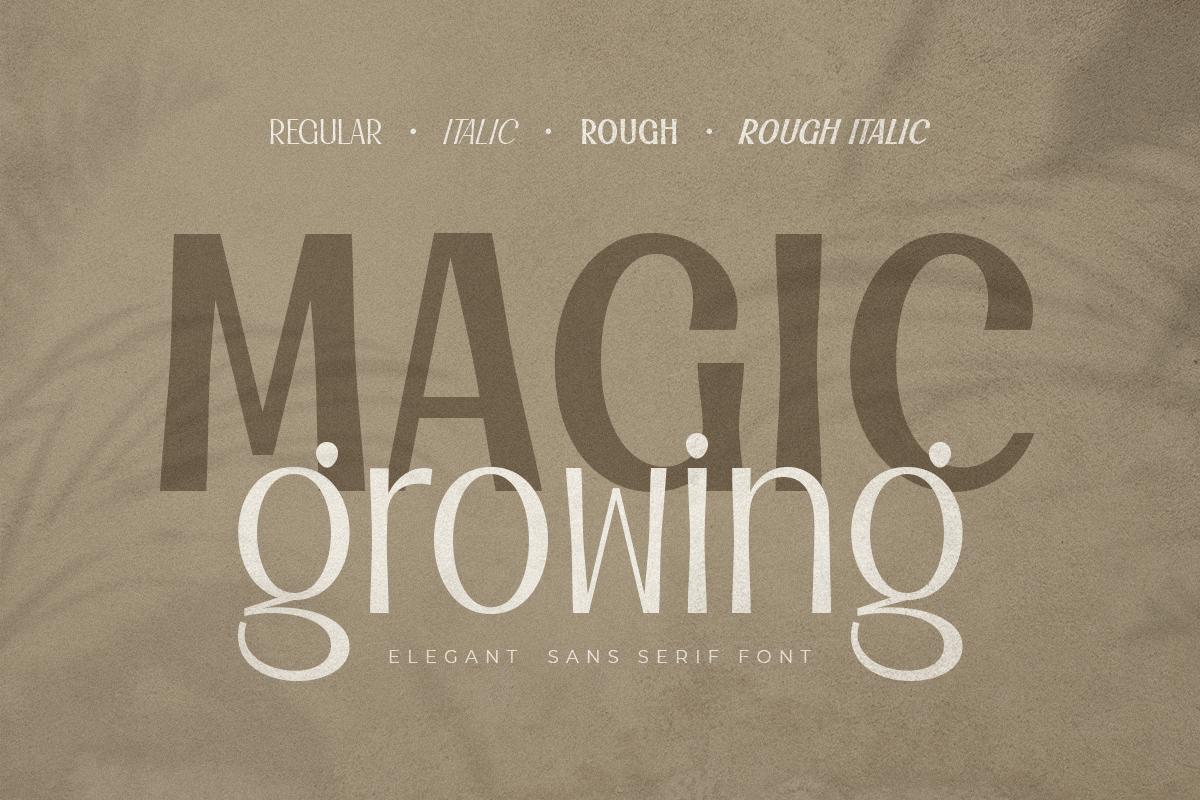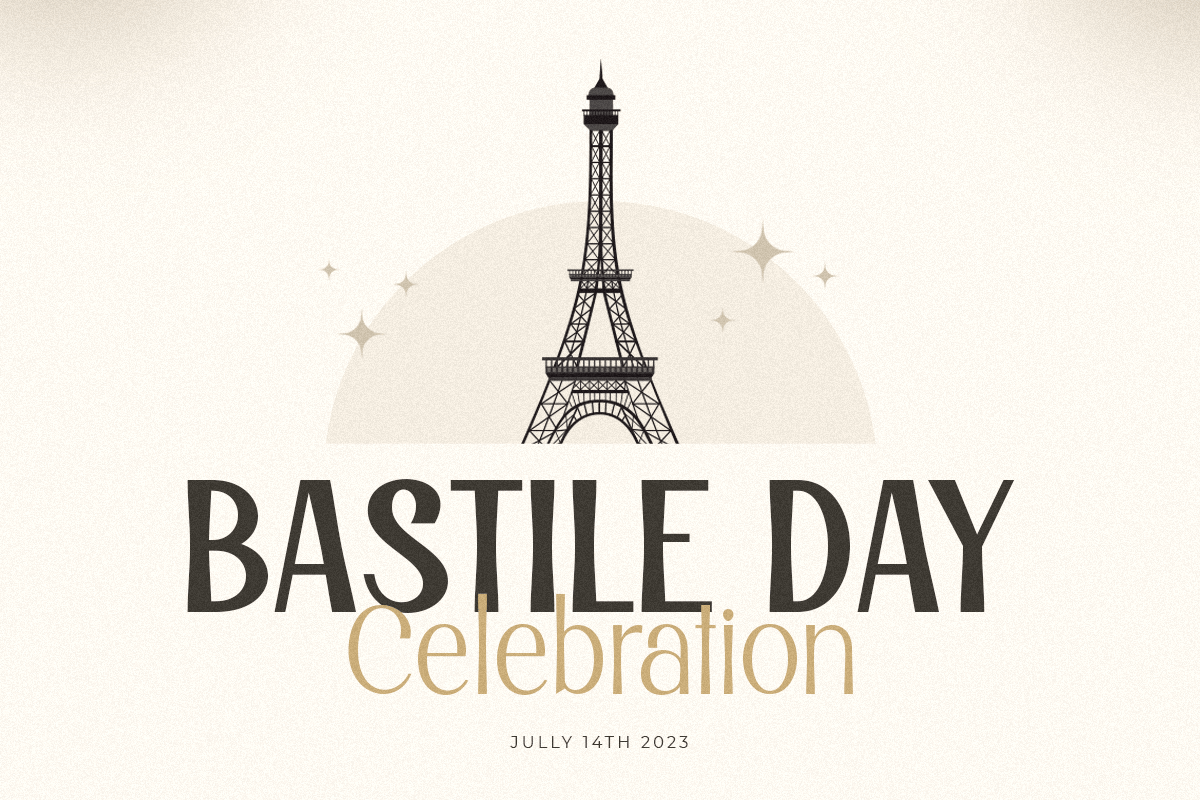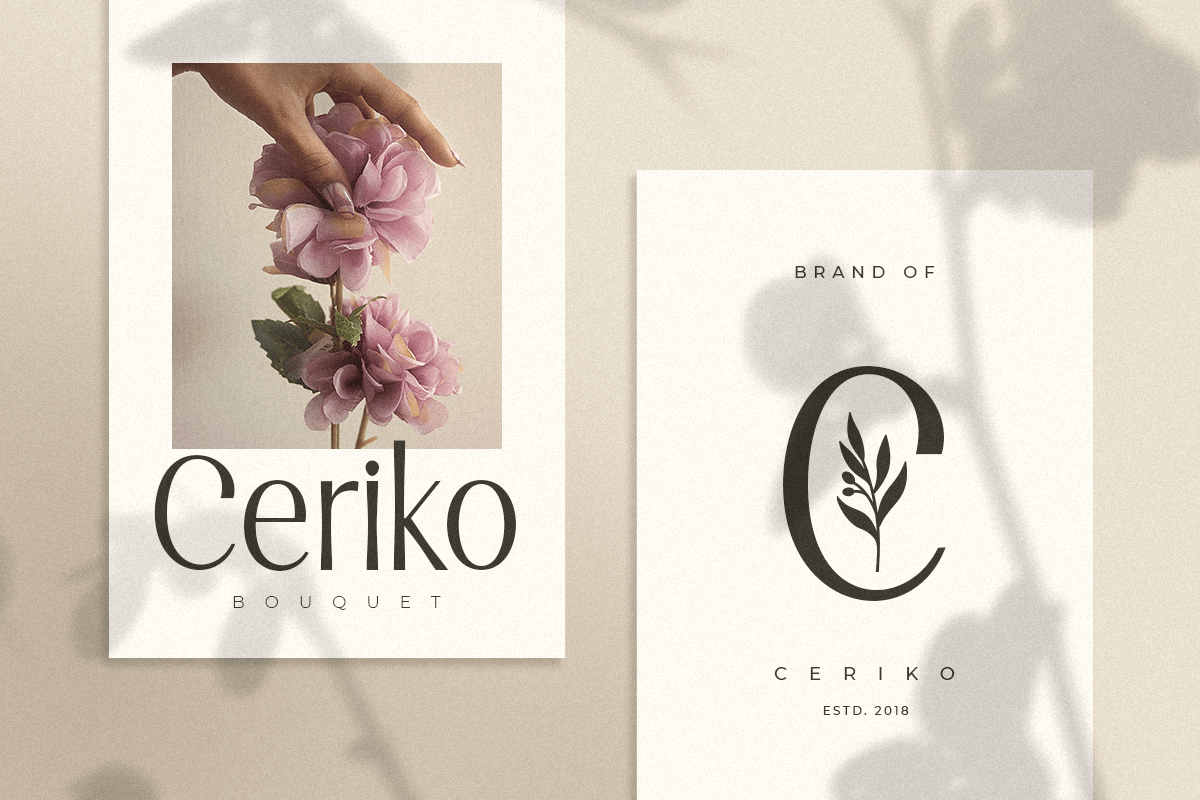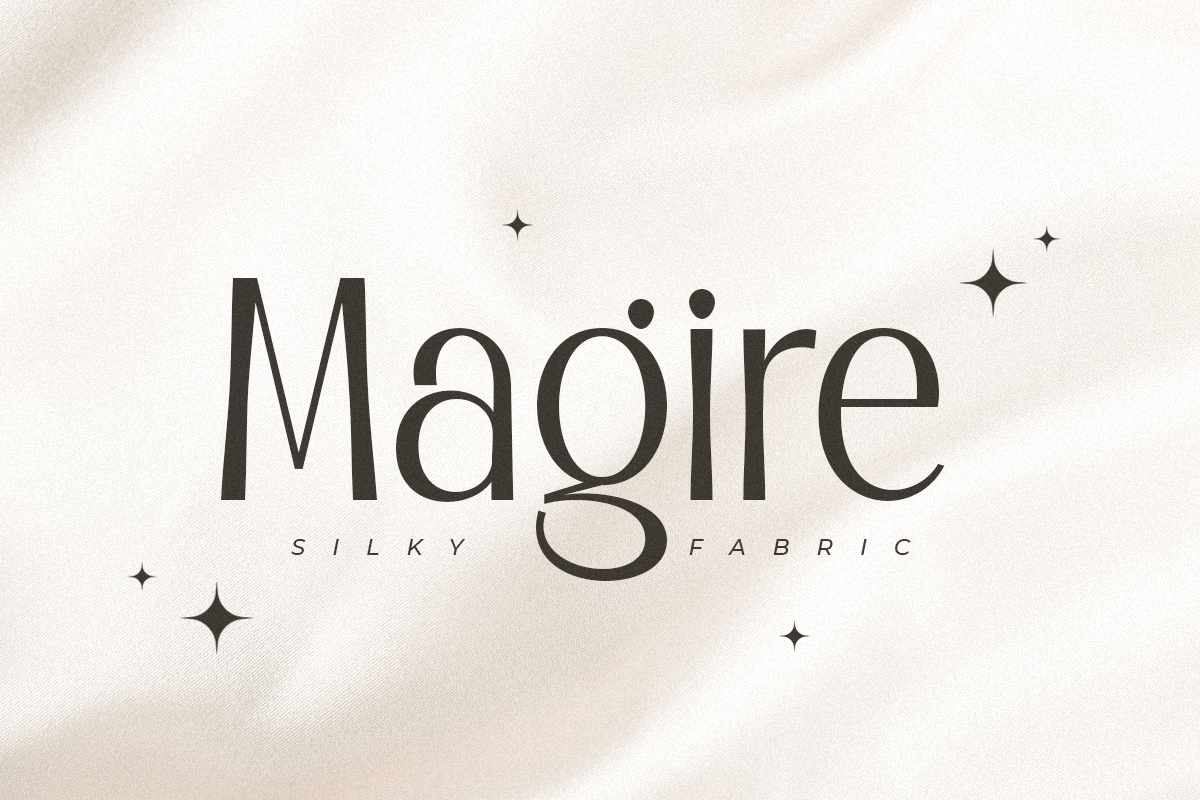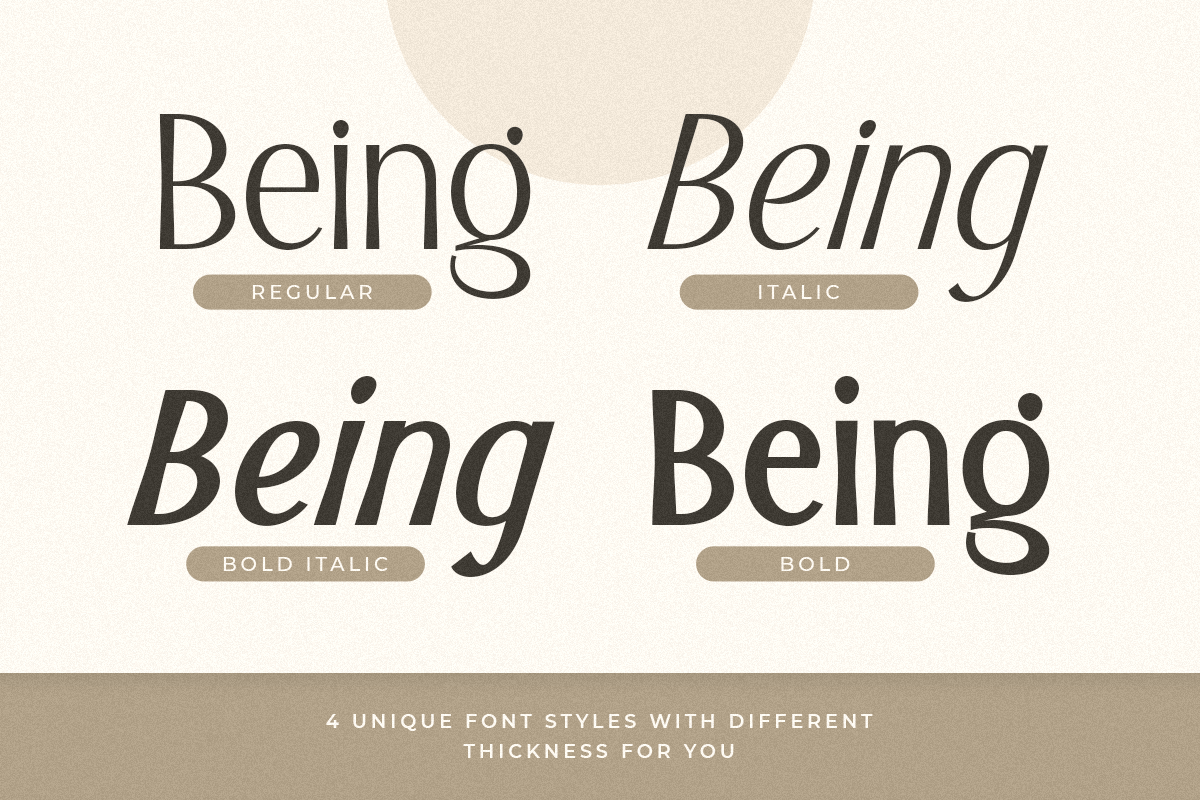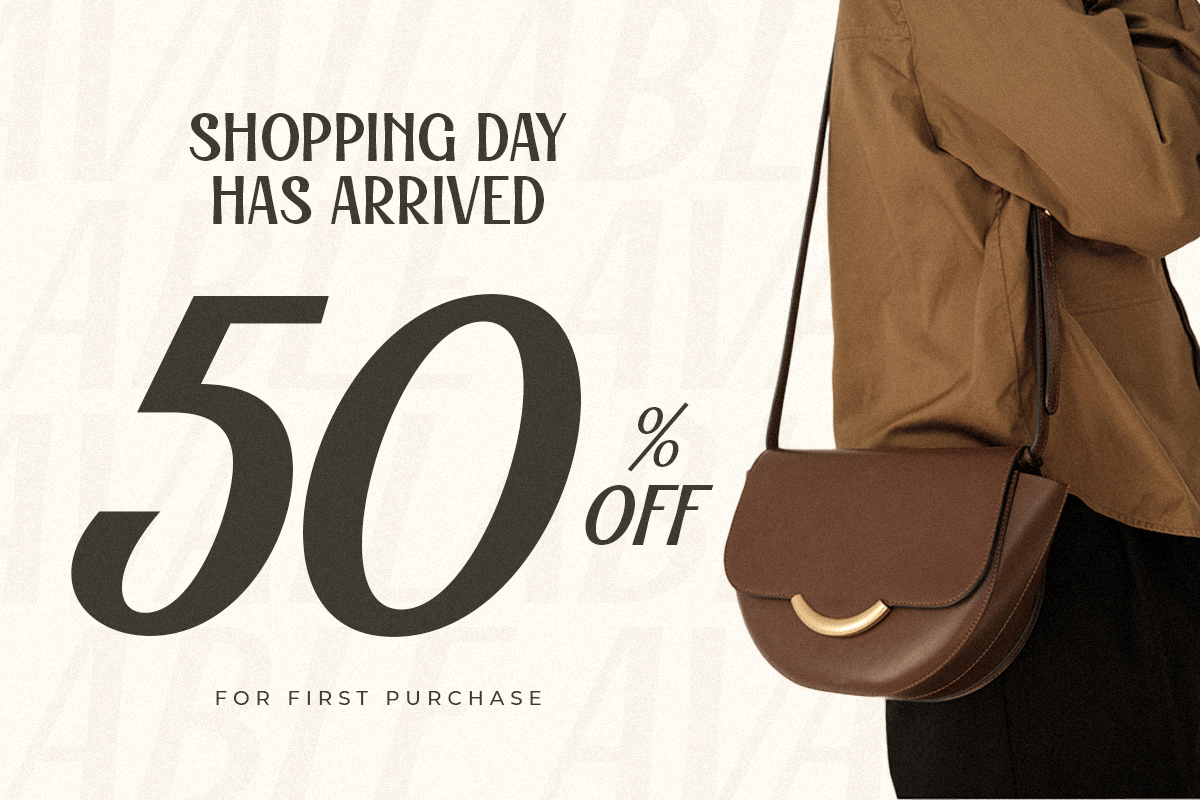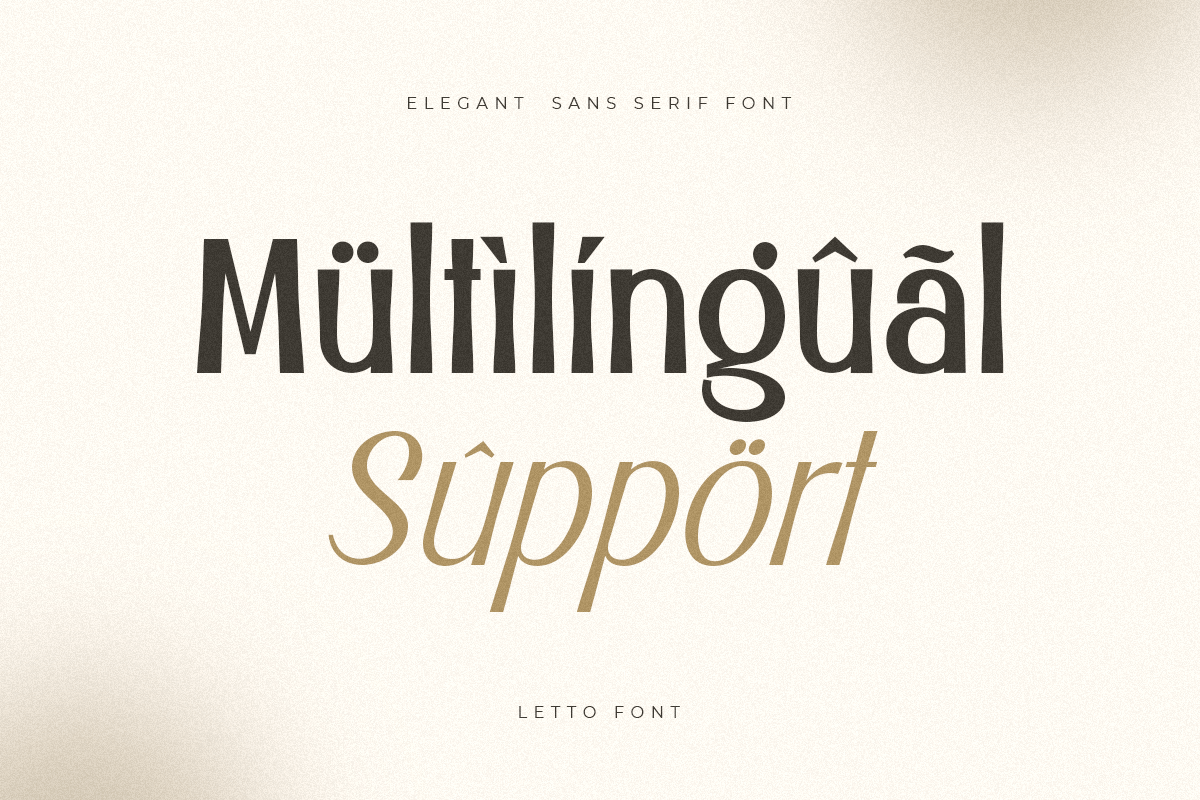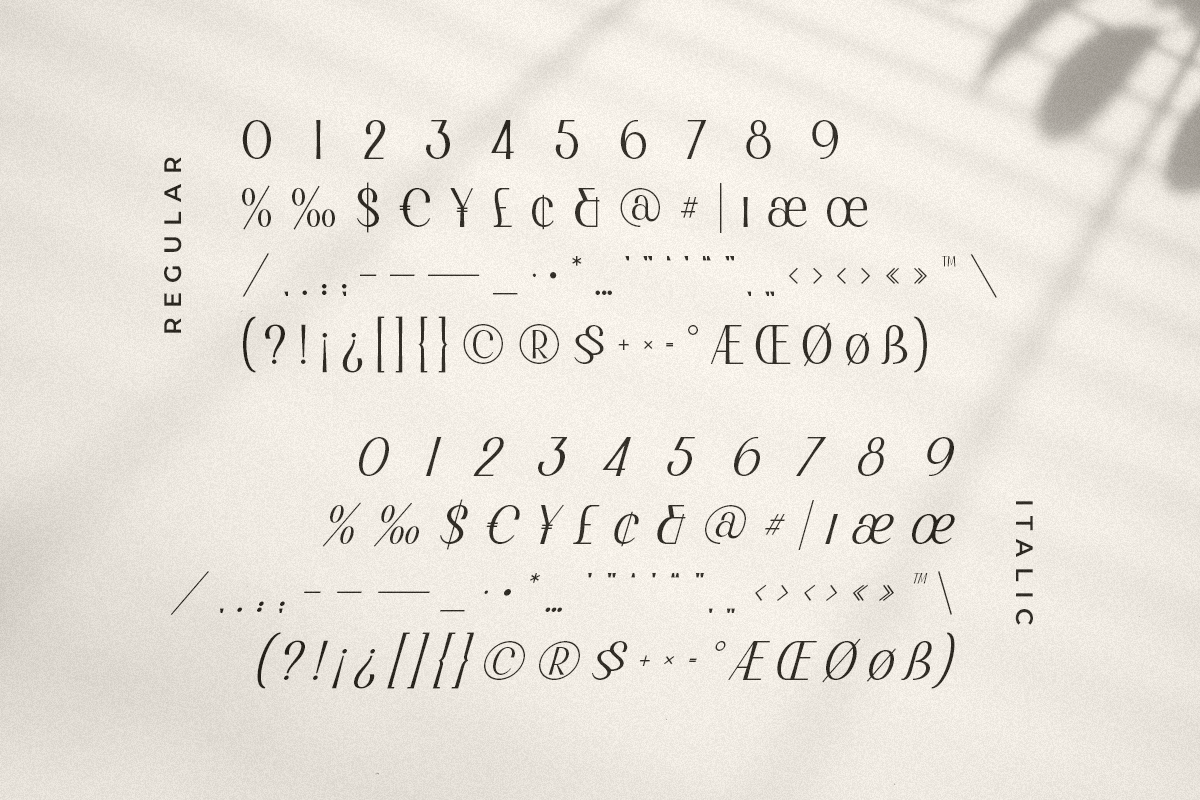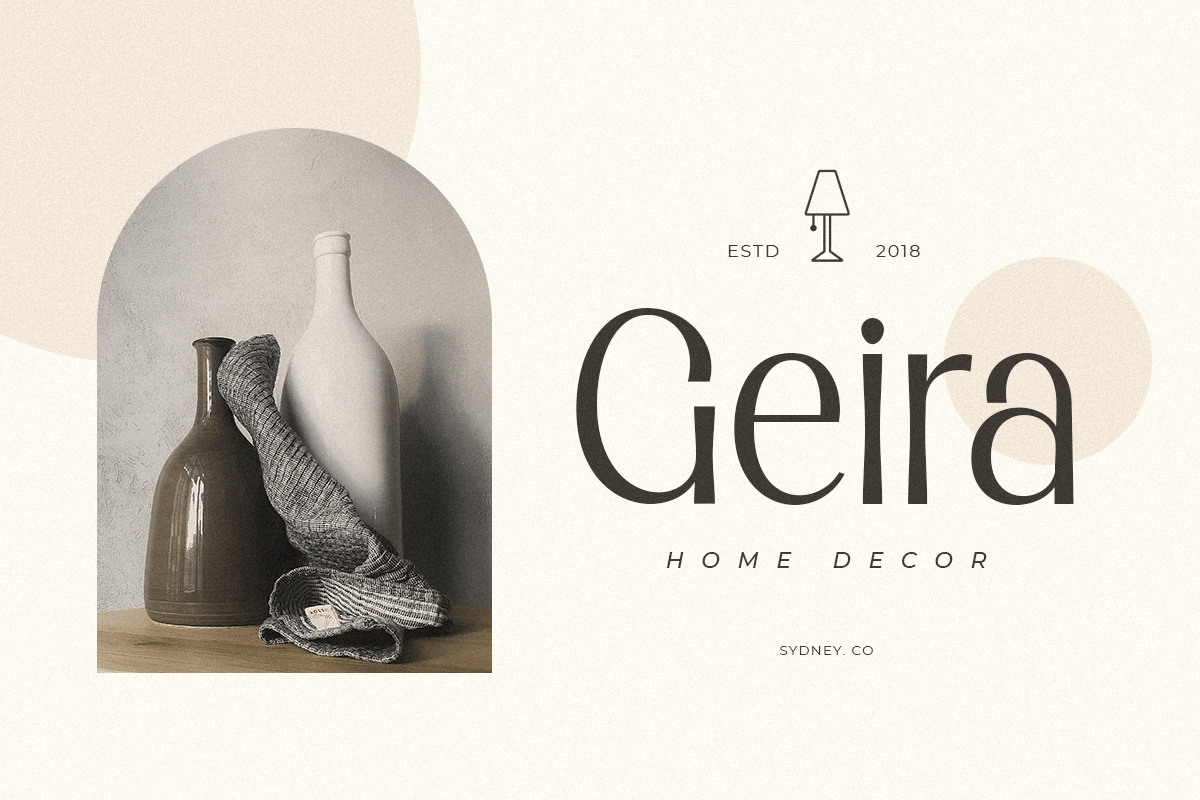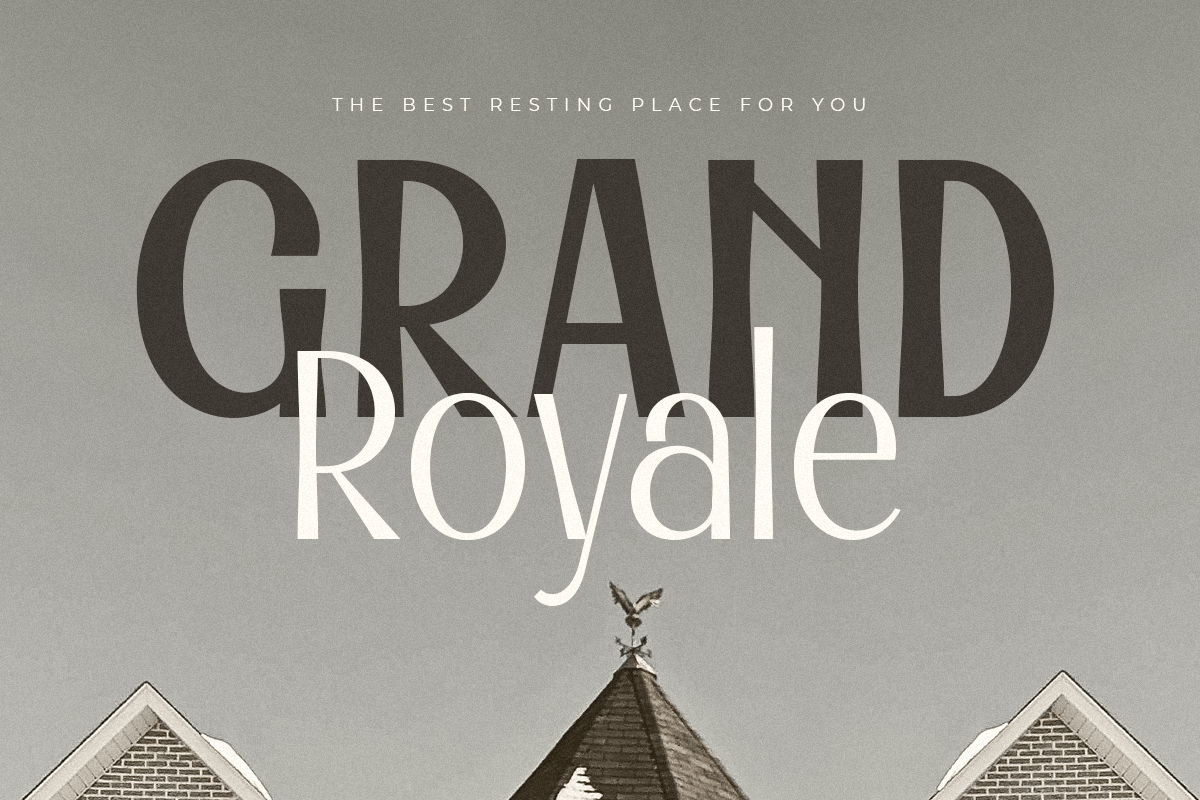
Magic Growing – Elegant Sans Serif Font
A Sans serif that we created special for elegant branding needs, with extra style will be ready to add value of your brand. It so nice to leverage designer or product owner that need solutions to make their design look more elegant and modern. And specially for this font, We prepared any Styles to help you create unlimited variations for your creative needs.
Magic Growing Elegant Sans Serif Font ready with:
- Any styles to get creative variations (regular, bold, italic, bold italic)
- Preview as a inspirations that you can do with Magic Growing font
- Ready with Lowercase and Uppercase characters